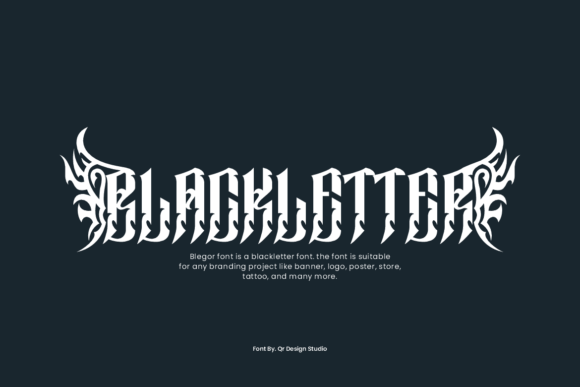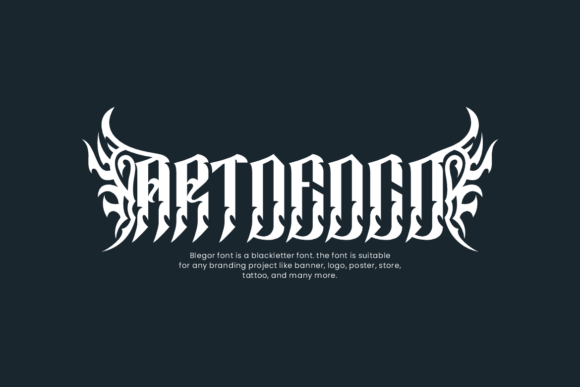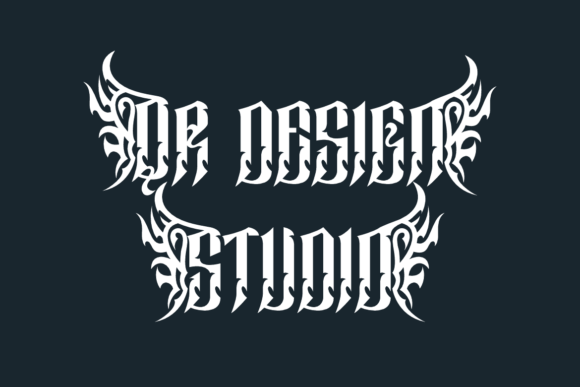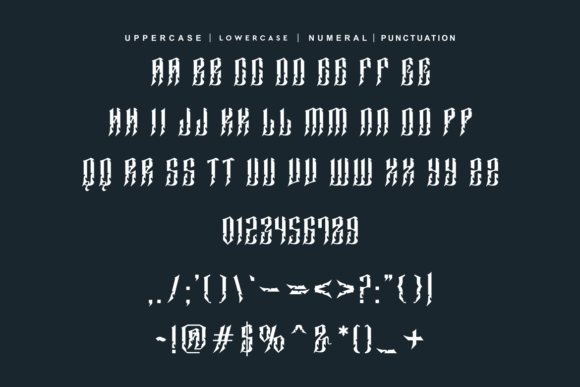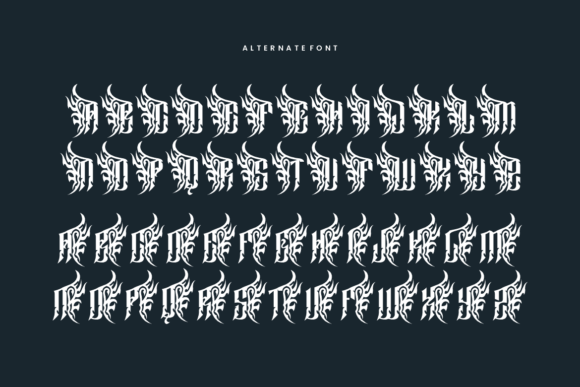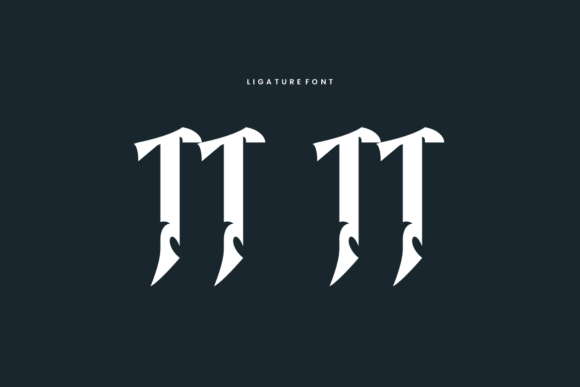
Blegor Font: A Dramatic Blackletter and Art-Deco Hybrid
The Blegor font is a highly stylized blackletter and art-deco hybrid typeface that commands attention through its dramatic form and ornamental design. This unique font is a fusion of medieval lettering with modern tattoo aesthetics, making it a standout in the world of typography.
What Sets Blegor Apart
What sets Blegor font apart is its aggressive fusion of medieval lettering with modern tattoo aesthetics. The glyphs are not merely letters—they’re graphic compositions. Each character includes extended ornamental forms that appear etched or carved, suggesting motion and energy. This distinctive approach to typography makes Blegor a bold and eye-catching choice for designers and crafters.
Visual Characteristics
The Blegor font boasts several striking visual characteristics that make it a unique addition to any design project. Some of its key features include:
- Weight: Very bold and heavy, giving each letter a powerful, monolithic appearance.
- Shape: Letters feature classic blackletter verticality with pointed terminals and angular strokes. Unlike traditional gothic scripts, Blegor introduces sharp tribal-style embellishments that flow from the characters, creating a flame-like silhouette.
- Balance: While vertically dominant, the font maintains a sense of balance through its intricate design and ornamental details.
Uppercase and Lowercase Characters
The Blegor font features elaborate uppercase characters with intricate spikes and curves, making them perfect for headlines and titles. The uppercase characters are especially ornate, with extended flourishes that add to their dramatic appearance. Lowercase letters, on the other hand, retain the core visual language of the font but with slightly reduced intensity. This makes them suitable for body text and other applications where a bold but legible font is needed.
Design and Crafting Applications
The Blegor font is a versatile typeface that can be used in a variety of design and crafting applications. Its bold and ornate design makes it perfect for:
- Headlines and Titles: The font’s dramatic appearance makes it ideal for grabbing attention and adding emphasis to headlines and titles.
- Logos and Branding: Blegor’s unique blend of medieval and modern aesthetics makes it a great choice for logos and branding projects that require a bold and eye-catching typeface.
- Tattoos and Body Art: The font’s tribal-style embellishments and ornate design make it a popular choice for tattoo artists and body art enthusiasts.
- Graphic Design: Blegor can be used in a variety of graphic design applications, including posters, flyers, and brochures.
Tips for Using Blegor Font
To get the most out of the Blegor font, here are a few tips to keep in mind:
- Use it sparingly: Due to its bold and ornate design, Blegor font is best used sparingly to avoid overwhelming the viewer.
- Pair it with a simple font: Pairing Blegor with a simple font can help to create visual balance and add contrast to your design.
- Experiment with colors: Blegor font looks great in a variety of colors, so don’t be afraid to experiment and find the perfect hue for your design.
The Blegor font is a highly stylized blackletter and art-deco hybrid typeface that commands attention through its dramatic form and ornamental design. Its unique blend of medieval and modern aesthetics makes it a standout in the world of typography. With its bold and ornate design, Blegor font is perfect for designers and crafters looking to add a touch of drama and elegance to their projects.